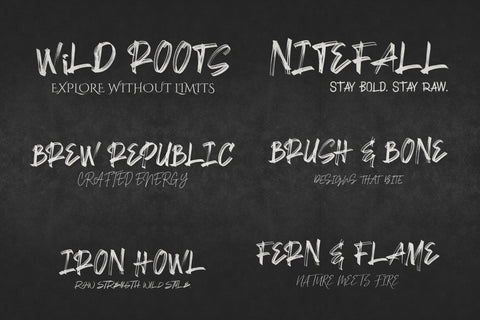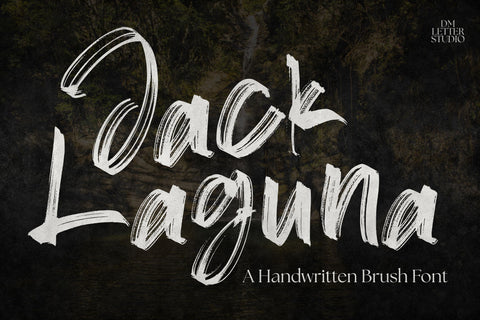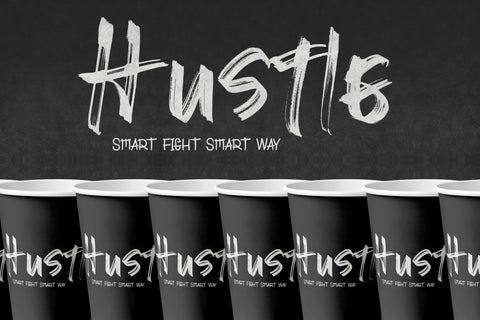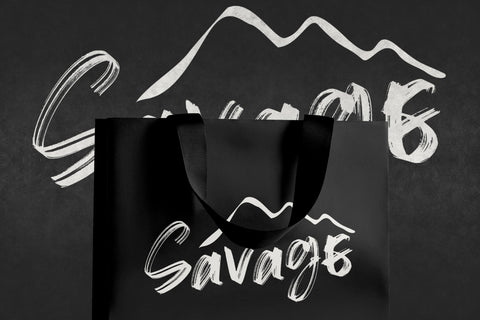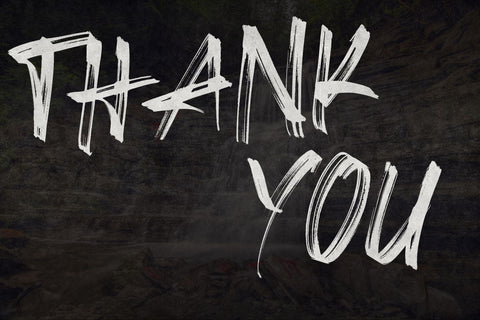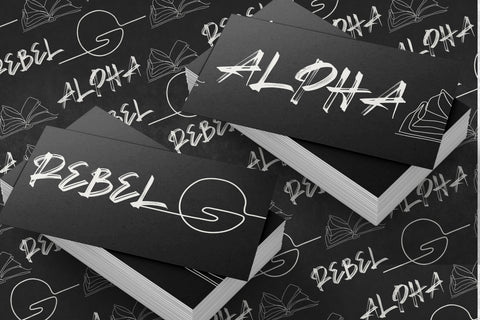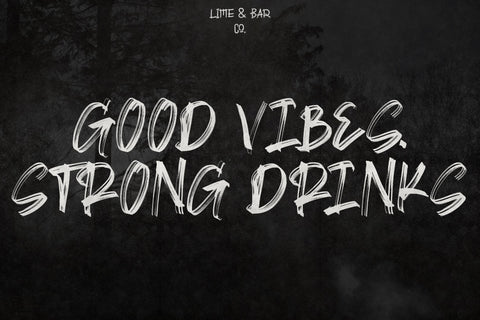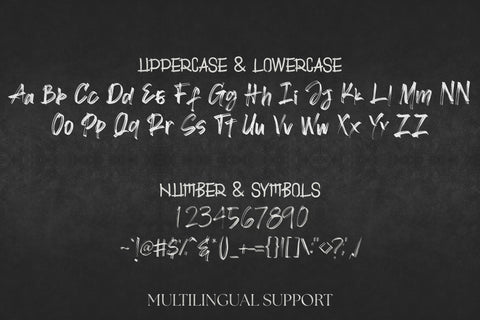
Jack Laguna
Jack Laguna – Handwritten Brush Font
Jack Laguna is a bold and expressive handwritten brush font that captures the free-spirited vibe of coastal living and creative energy. With thick strokes, textured edges, and a natural flow, this font adds personality and punch to any design. Perfect for adventurous branding, casual posters, and modern social media content.
Bold Brush Texture: Organic strokes with dry brush details for an authentic hand-painted look.
Dynamic Handwriting Style: Combines casual movement with impactful legibility.
Versatile Characters: Includes uppercase, lowercase, numerals, and basic punctuation.
Ideal For: Travel quotes, beach-themed designs, YouTube thumbnails, streetwear branding, posters, and lifestyle content.